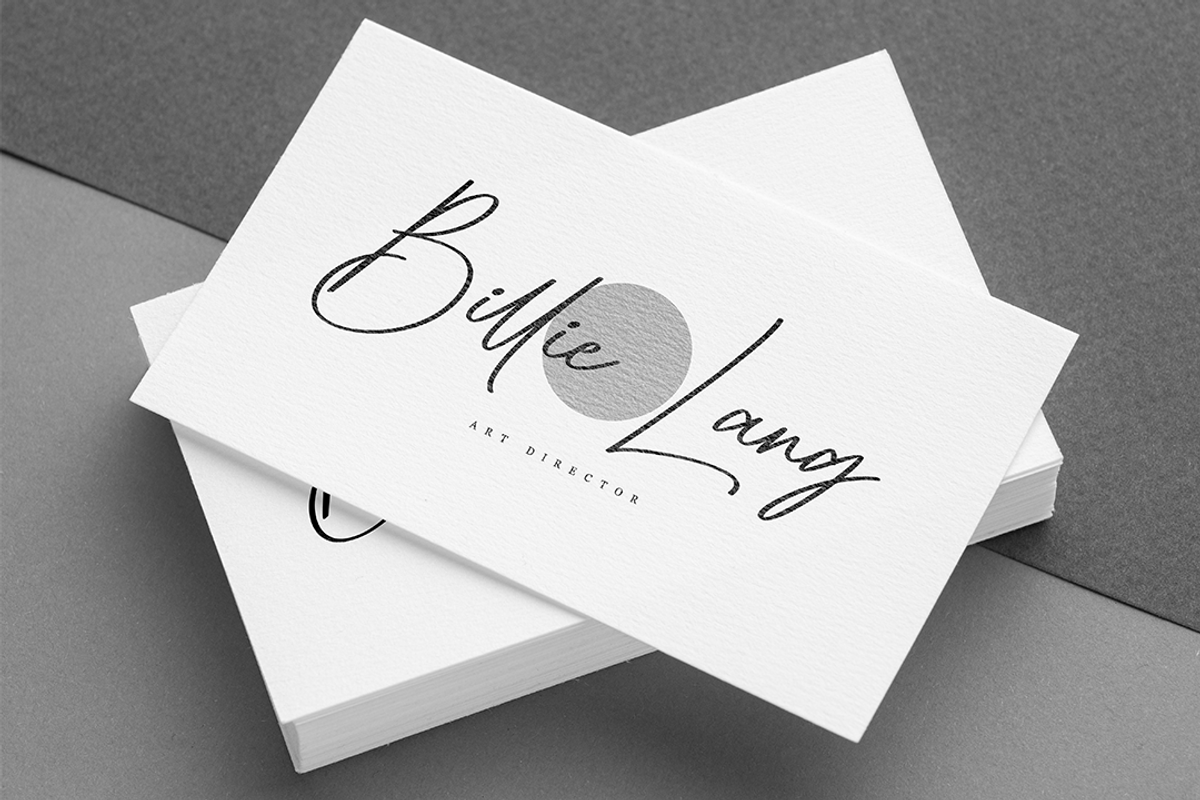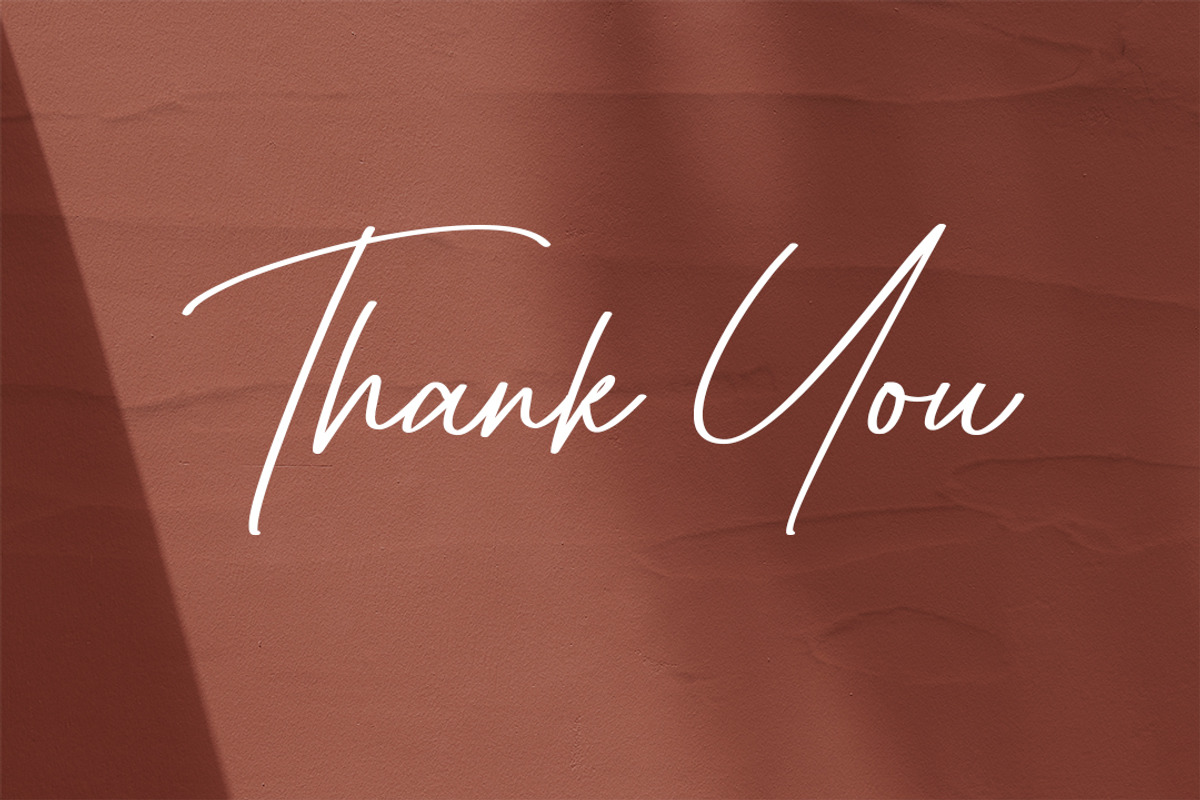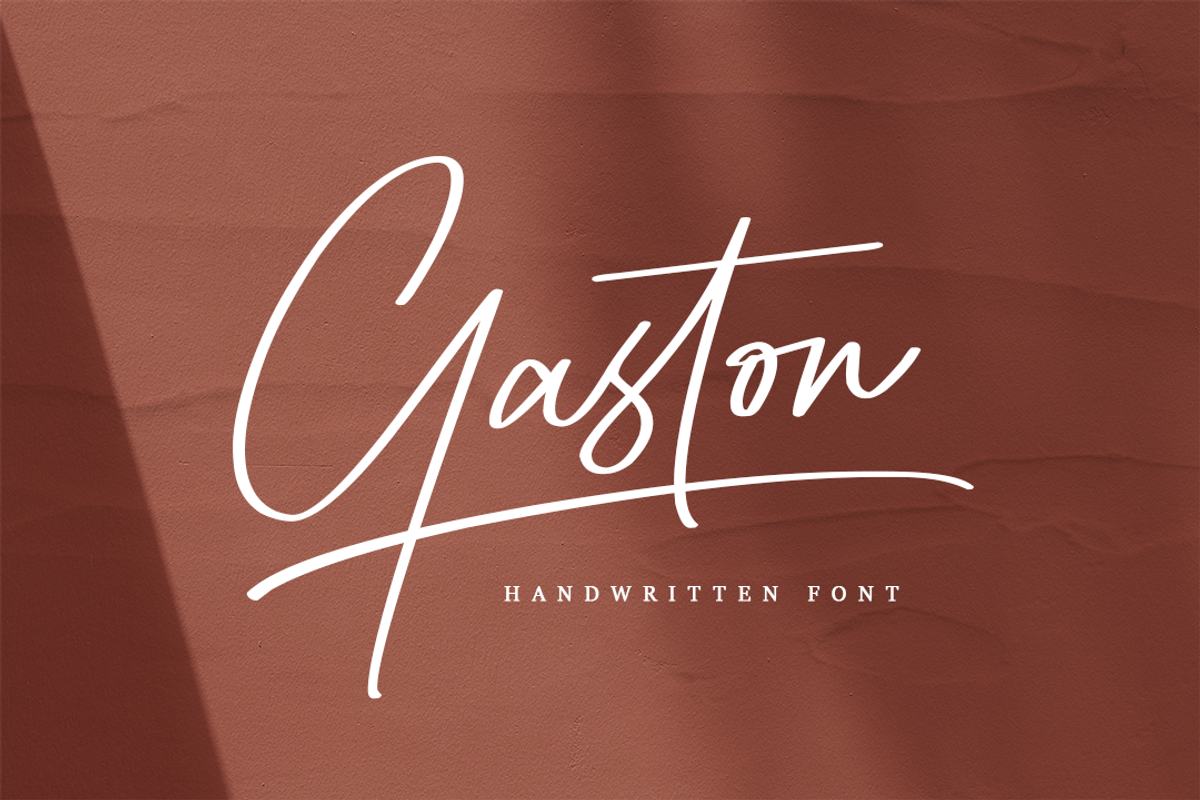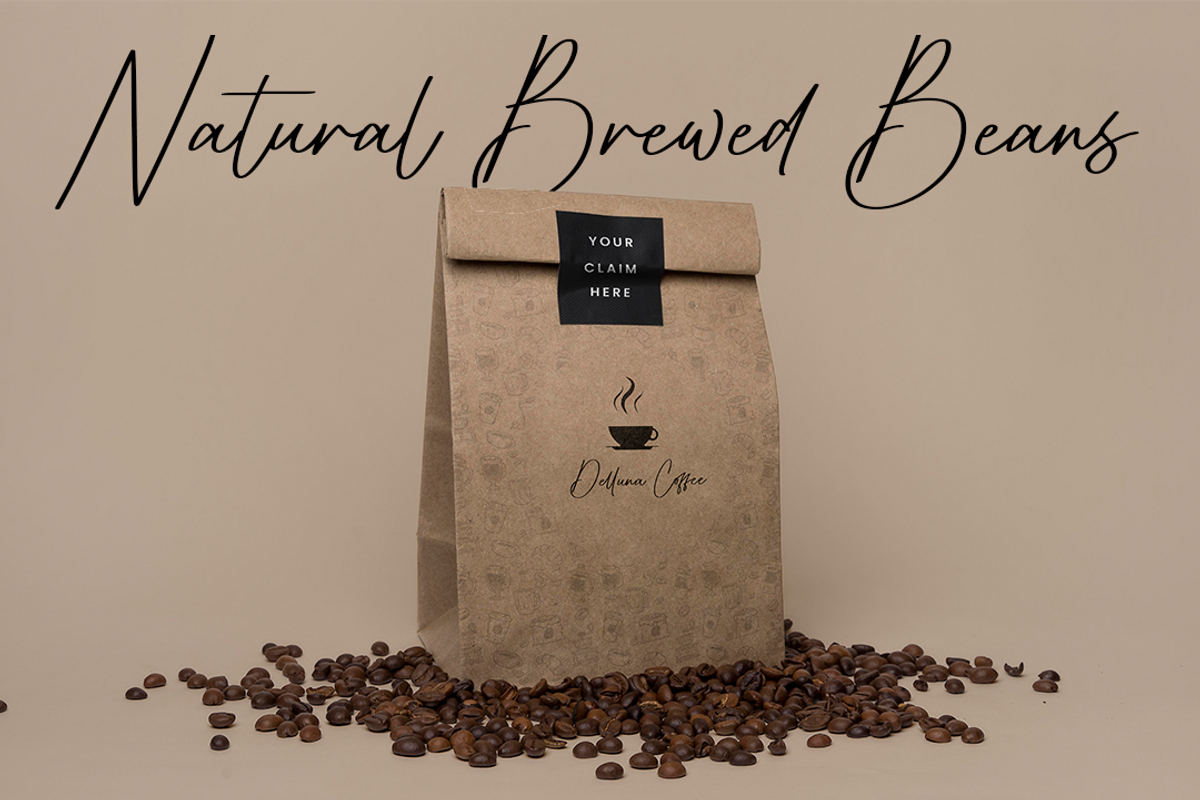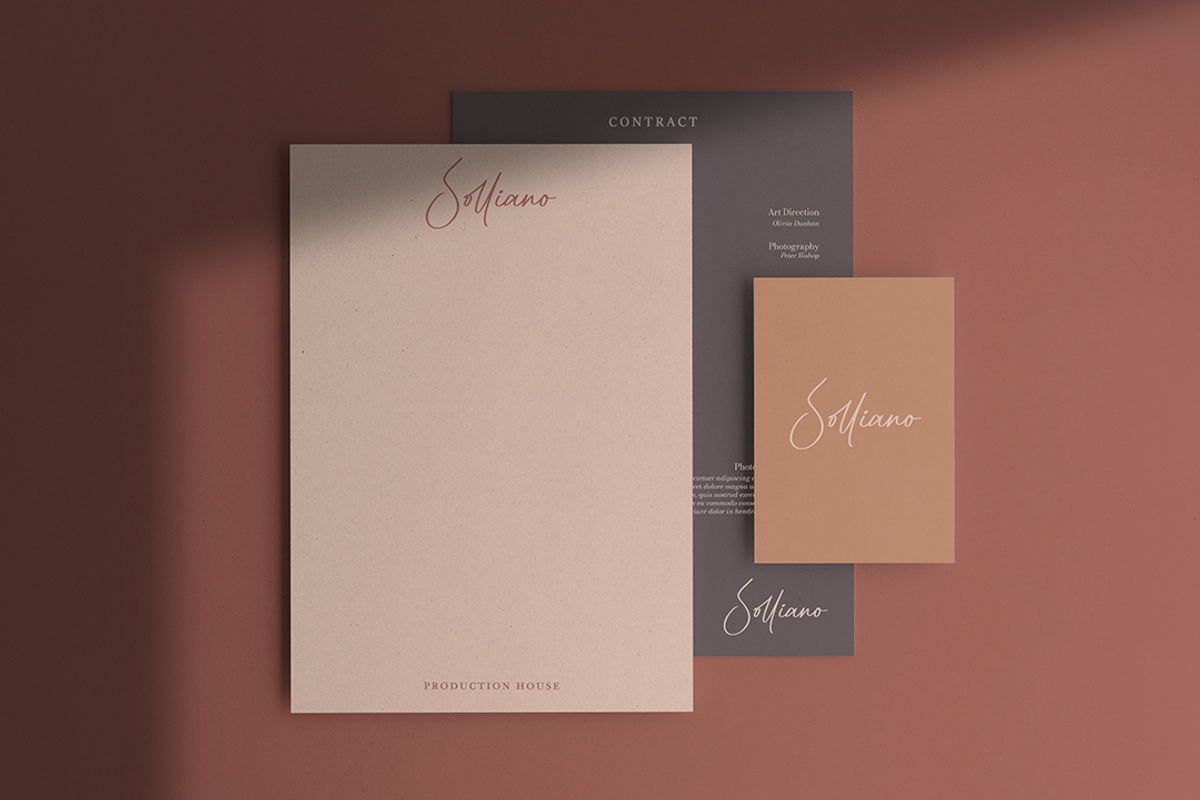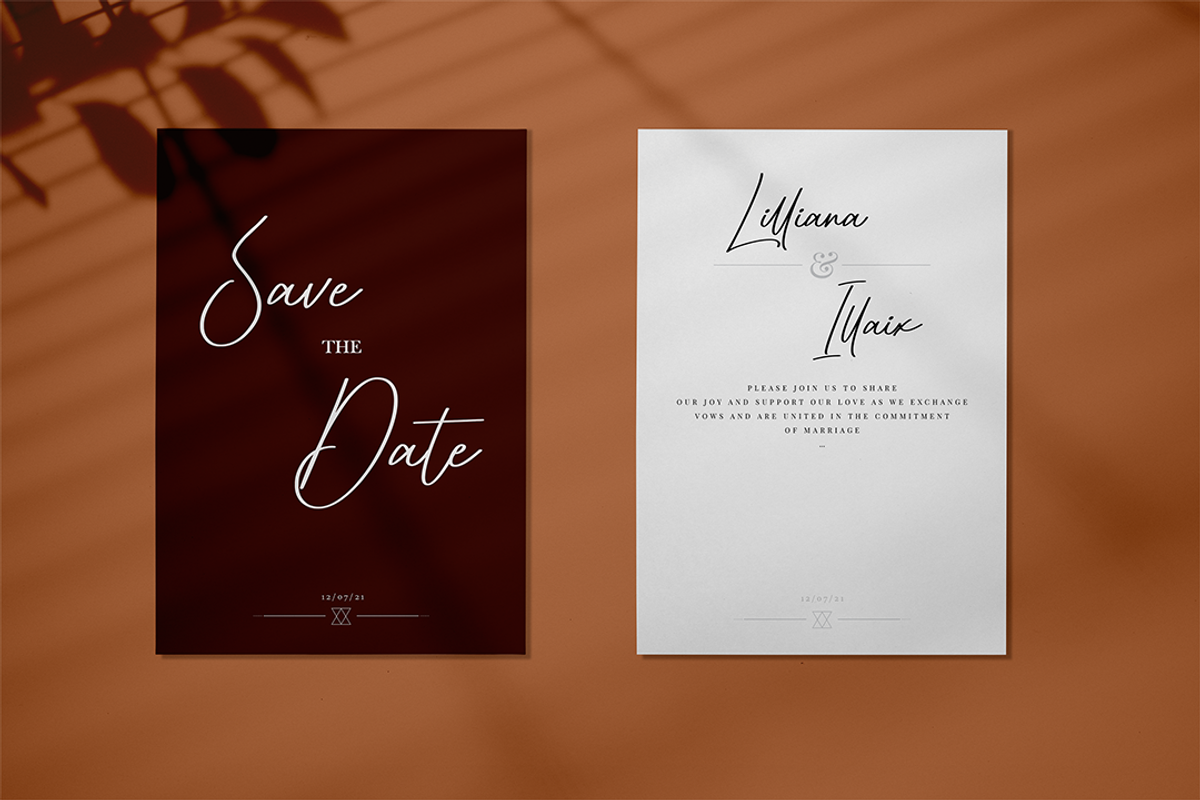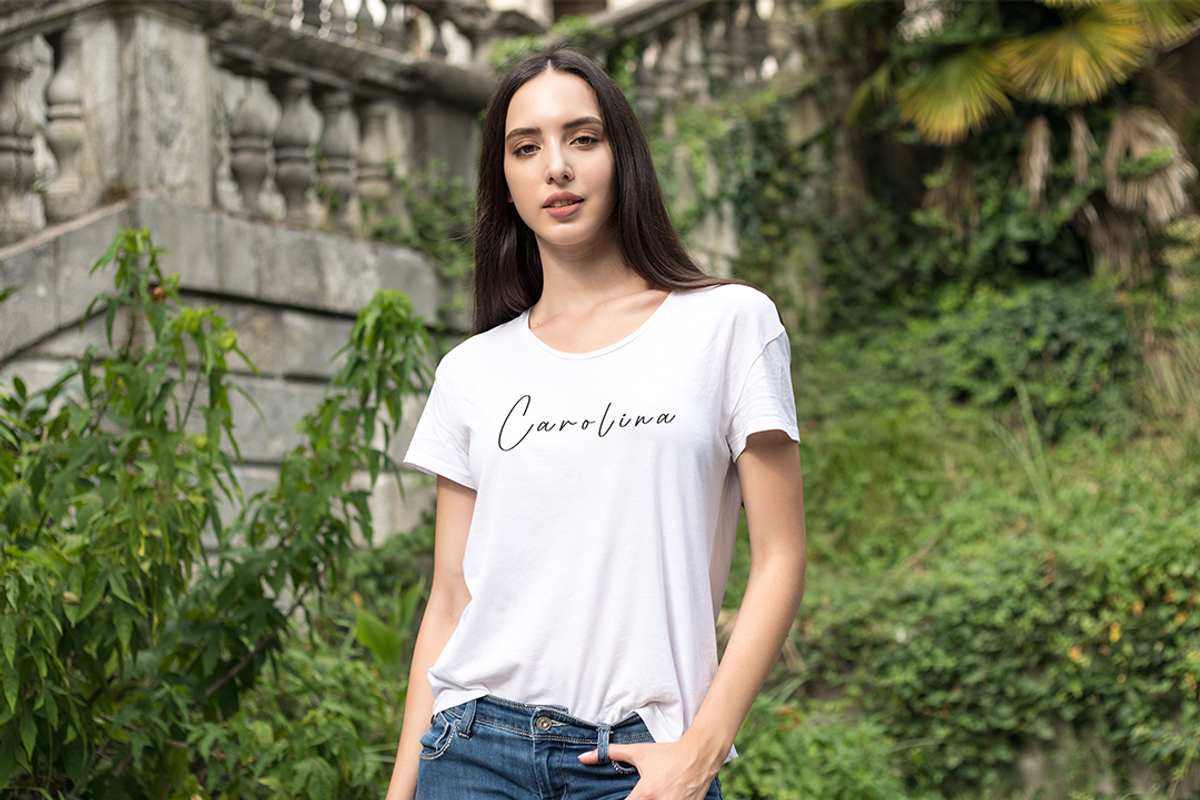
Gaston | Handwritten Font
Hi! Introducing my newest font called Gaston.
Gaston is a stylish script font. It will add a luxury spark to any design project that you wish to create! This font is PUA encoded which means you can access all of the amazing glyphs and ligatures with ease!